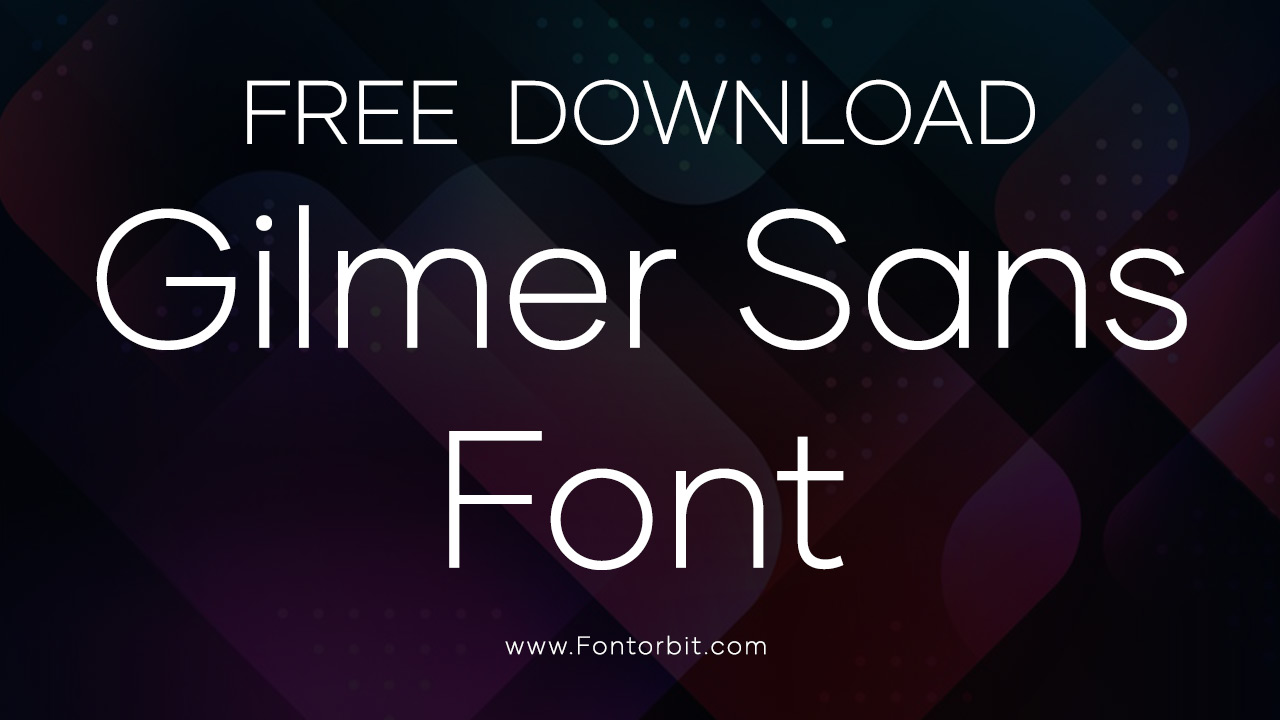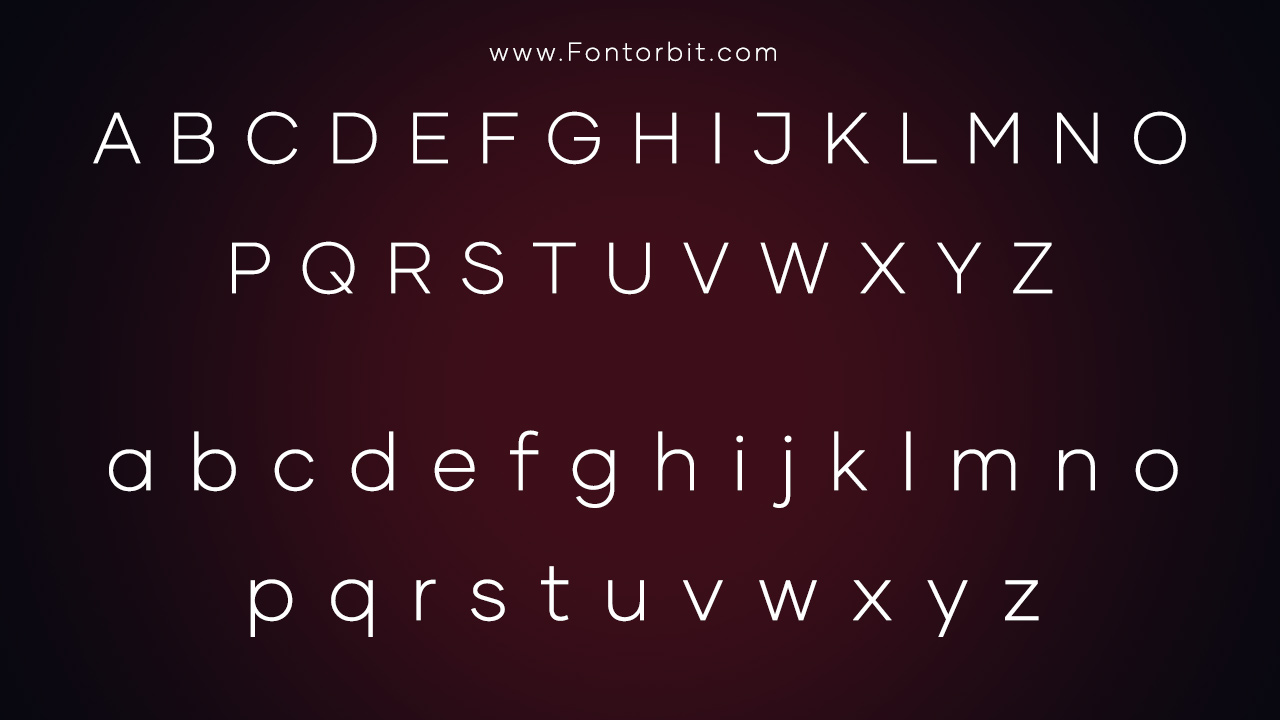
Gilmer Sans Font is a versatile typeface family created by Piotr Łapa. Designed to make a stylish statement, Gilmer Sans offers a modern, geometric look that works well in various applications, including headlines, branding, and digital design.
Type Of The Gilmer Sans Font (Font Family)
Gilmer Sans Font falls into the category of geometric sans-serif typefaces, known for their clean lines and modern aesthetics. The Gilmer font family includes:
- Gilmer Sans Regular
- Gilmer Sans Bold
- Gilmer Sans Italic
- Gilmer Sans Light
- Gilmer Sans Medium
- Gilmer Sans Extra Bold
Gilmer Sans Font is ideal for adding a contemporary touch to a variety of projects. Its geometric design makes it well-suited for:
- Logo design
- Magazines
- Website graphics
- Packaging materials
The Gilmer Sans Font Found In Use
Gilmer Sans Font is a contemporary geometric sans-serif typeface perfect for a wide range of creative uses. Ideal for making impactful headlines and enhancing branding materials. Gilmer Sans has a distinct geometric structure and large x-height, while other sans-serif fonts may vary in style and stroke contrast. It brings a fresh, modern edge to your designs.
1.What Are The Characteristics Of Gilmer Sans Font?
Gilmer Sans Font features a geometric, modern design with strong capitals and a large x-height, making it versatile for various applications.
2.What Are The Considerations For Using Gilmer Sans Font In Branding?
Ensure the font aligns with your brand’s modern and clean aesthetic. It’s ideal for brands aiming for a fresh, contemporary look.
3.What Are The Limitations Of Using Gilmer Sans Font In Design?
Its geometric design might not suit more traditional themes and may lack warmth for certain applications.
5.What Do You Want From A Gilmer Sans Font?
Users typically seek a modern, versatile typeface with a clean and distinctive look for various design projects.
8.What Styles Are Popular In Gilmer Sans Fonts?
Modern geometric styles are popular. They offer a clean and contemporary look suitable for various design applications.